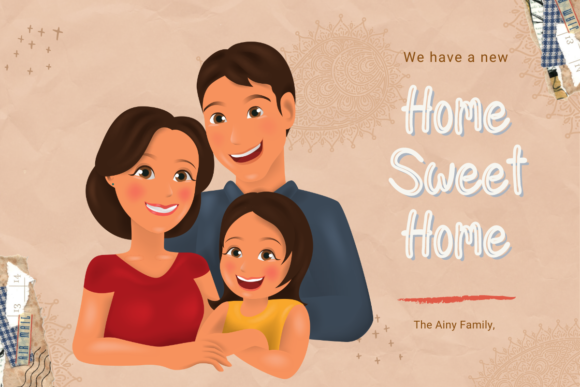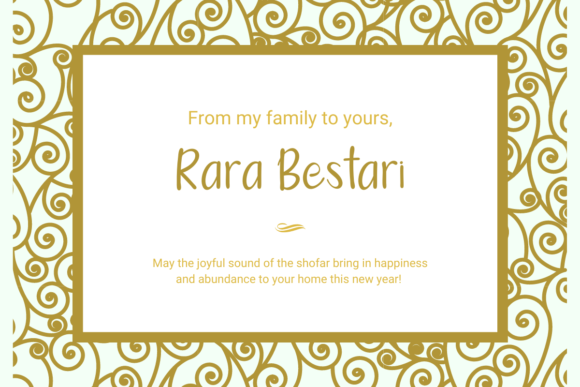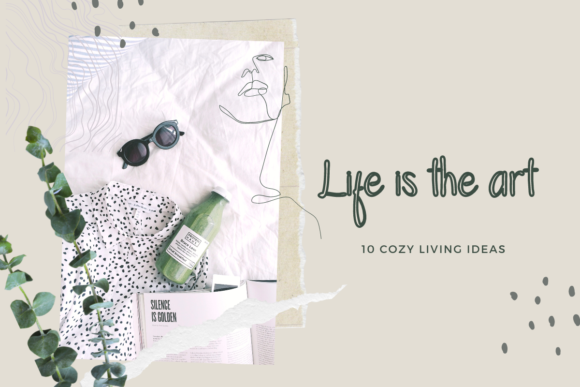
Coffee Break Font: The Perfect Addition to Your Design Arsenal
Are you tired of using the same old fonts in your designs? Look no further than the Coffee Break Font, a cute, relaxed, and friendly handwritten font that’s sure to elevate your creative projects. With its natural and unique style, Coffee Break Font is incredibly versatile and can be used in a wide range of designs, from branding and packaging to scrapbooking and DIY crafts.
The Characteristics of Coffee Break Font
Coffee Break Font is a handwritten font that’s designed to evoke a sense of warmth and approachability. Its relaxed and friendly vibe makes it perfect for designers who want to add a personal touch to their work. The font’s natural and unique style is characterized by:
- Fluid, cursive strokes that give the font a sense of movement and energy
- A mix of uppercase and lowercase letters, with a focus on legibility and readability
- A charming, hand-crafted feel that’s perfect for adding a personal touch to your designs
The Benefits of Using Coffee Break Font
So why choose Coffee Break Font for your next design project? Here are just a few benefits of using this versatile font:
- Versatility: Coffee Break Font can be used in a wide range of designs, from formal and professional to casual and playful.
- Legibility: The font’s clear and readable design makes it perfect for use in body text, headings, and titles.
- Uniqueness: With its natural and unique style, Coffee Break Font is sure to help your designs stand out from the crowd.
Ideas for Using Coffee Break Font
So what can you create with Coffee Break Font? The possibilities are endless, but here are a few ideas to get you started:
- Branding and packaging: Use Coffee Break Font to create custom logos, labels, and packaging that reflects your brand’s personality.
- Scrapbooking and journaling: Add a personal touch to your scrapbook pages and journals with Coffee Break Font.
- DIY crafts: Use Coffee Break Font to create custom signs, banners, and other DIY crafts.
- Web design: Use Coffee Break Font to create a unique and memorable website that stands out from the crowd.
Tips for Getting the Most Out of Coffee Break Font
Here are a few tips for getting the most out of Coffee Break Font:
- Experiment with different colors and textures: Coffee Break Font looks great in a variety of colors and textures, so don’t be afraid to experiment and find the perfect combination for your design.
- Mix and match with other fonts: Coffee Break Font pairs well with a variety of other fonts, so try mixing and matching it with other fonts to create a unique and interesting design.
- Use it in combination with images: Coffee Break Font looks great in combination with images, so try using it to add a personal touch to your photos and illustrations.
In conclusion, Coffee Break Font is a versatile and unique font that’s perfect for designers and crafters who want to add a personal touch to their work. With its natural and relaxed style, Coffee Break Font is incredibly versatile and can be used in a wide range of designs. Whether you’re creating branding and packaging, scrapbooking and journaling, or DIY crafts, Coffee Break Font is sure to be a valuable addition to your design arsenal.